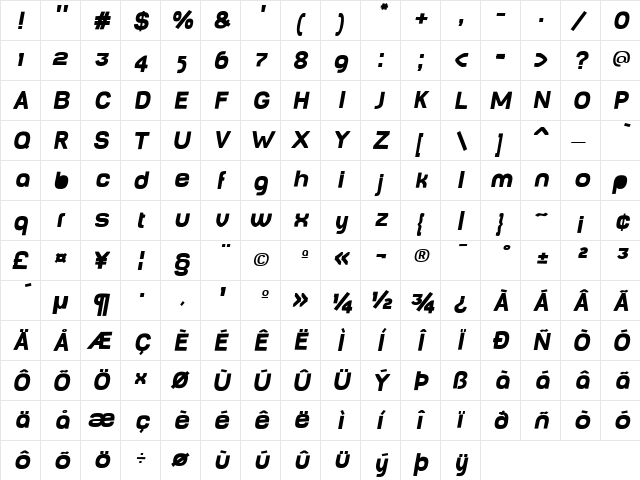
BabyMineFat Italic
Design Context for BabyMineFat Typeface
BabyMineFat offers clean, dependable letterforms without strong stylistic allegiance, making it a practical choice for designers who need flexibility. Its italic angle brings a sense of urgency and motion to the letterforms.